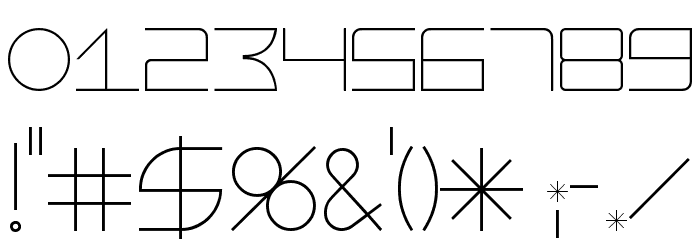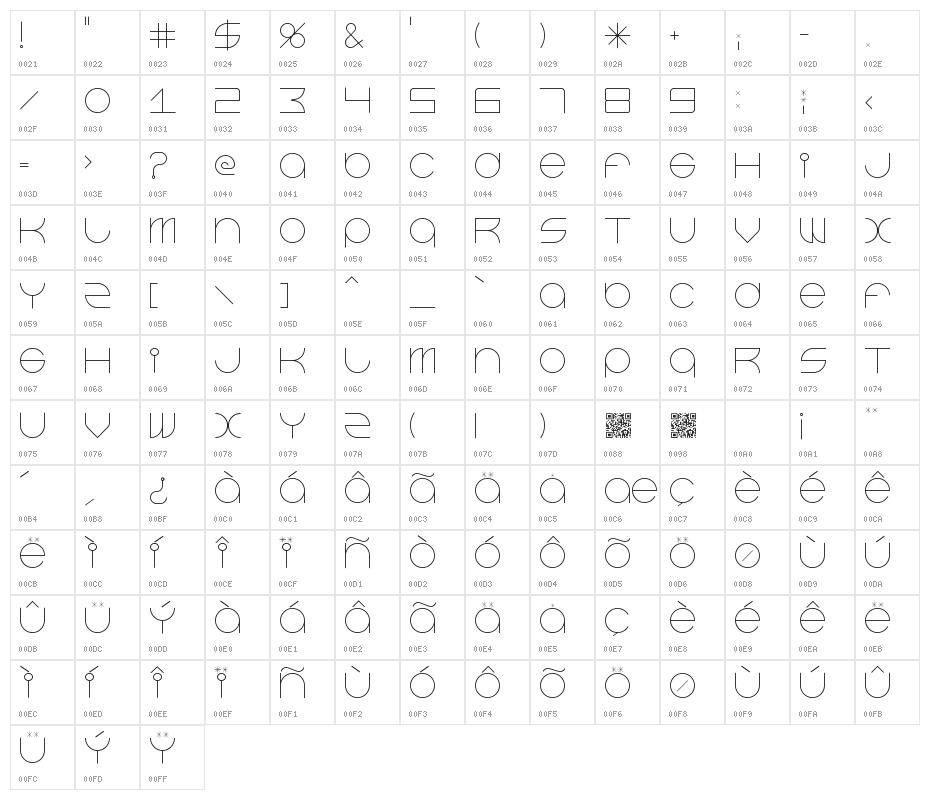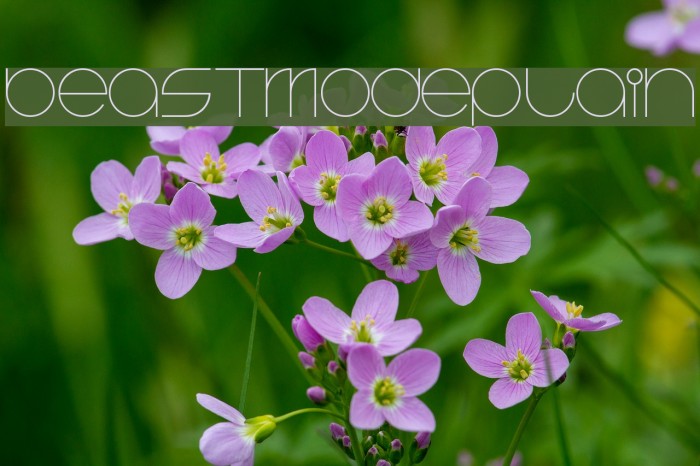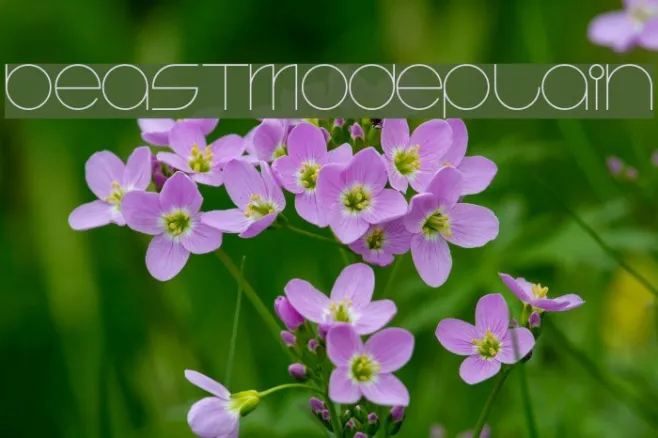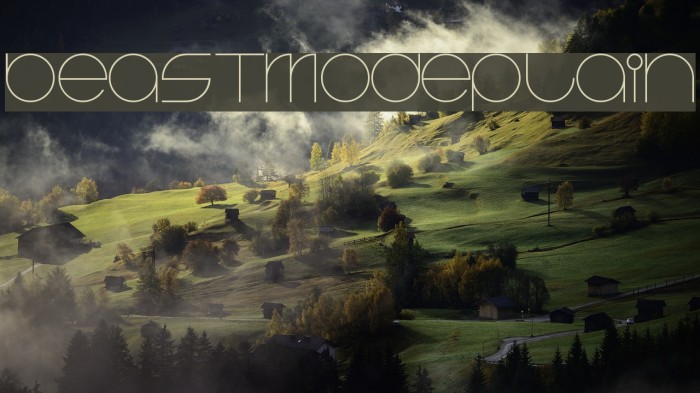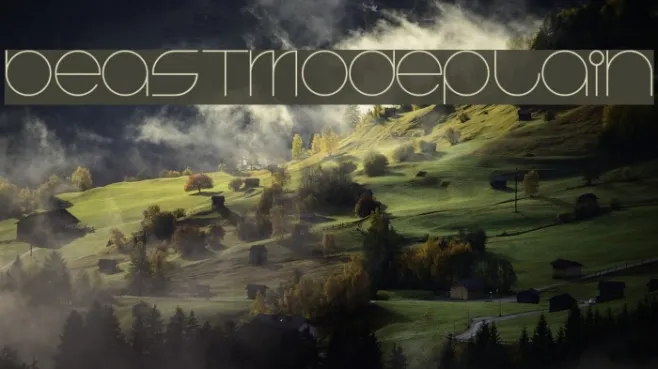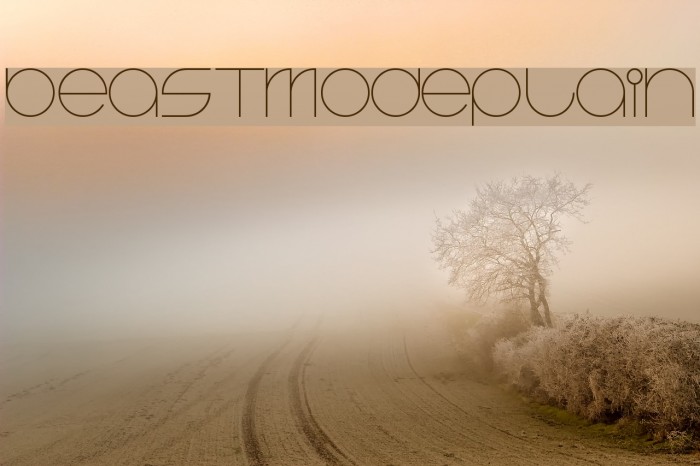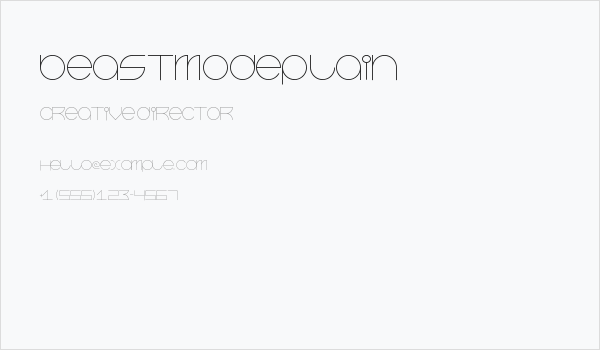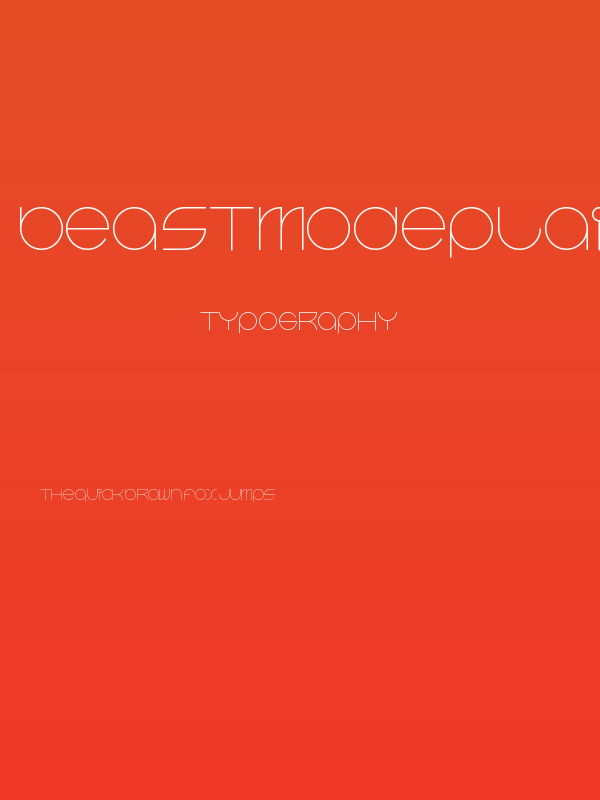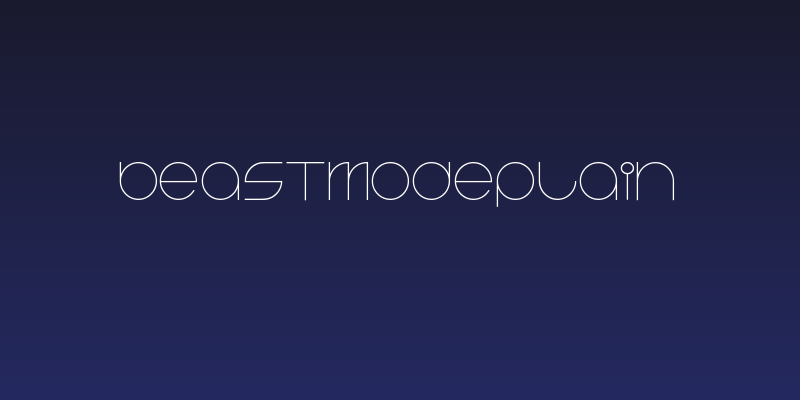
BeastModePlain Font
BeastModePlain Description
This font features a sleek, geometric design with thin, uniform lines that create a modern and minimalist aesthetic. The characters are constructed with a combination of straight lines and smooth curves, giving it a futuristic feel. The uppercase and lowercase letters maintain a consistent style, with a focus on simplicity and clarity. Numbers and special characters are designed to match the overall theme, ensuring a cohesive look across all text. The font's clean lines and open spacing make it highly legible, even at smaller sizes, while its unique style adds a distinctive touch to any project.
| Overall Style | Futuristic, Minimalist |
| Proposed Projects | Ideal for tech branding, modern advertising, minimalist posters, and futuristic design projects. |